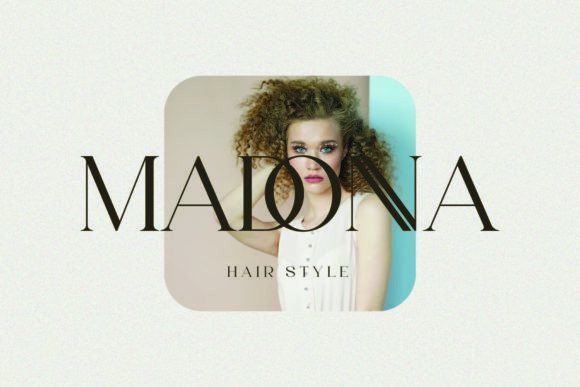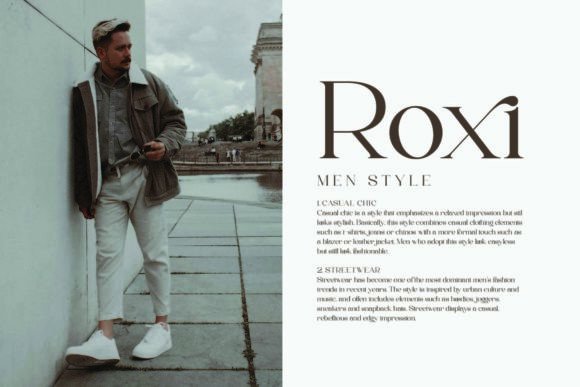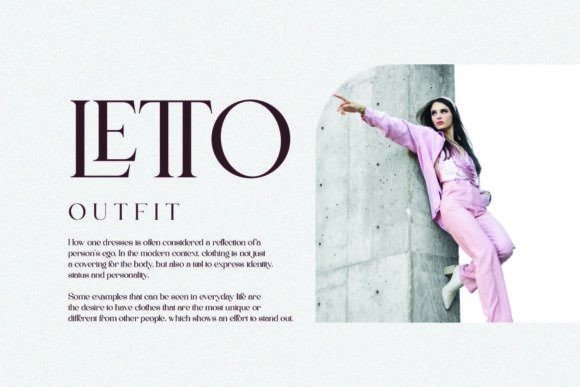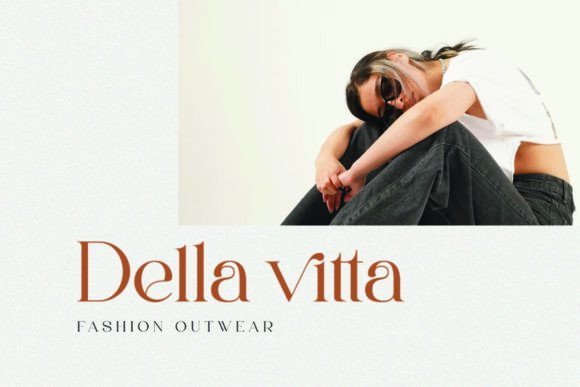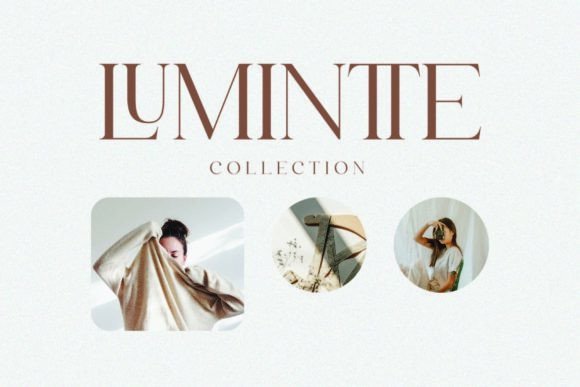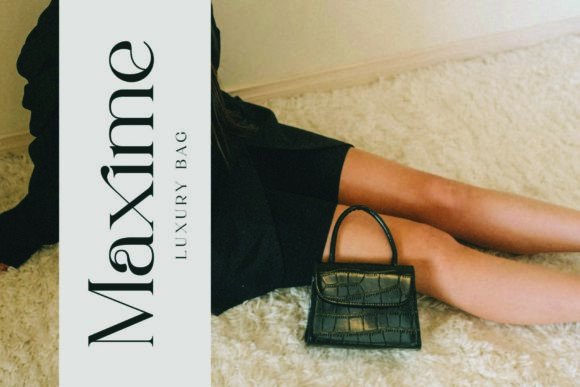
Introducing Govind Font: A Stylish Ligature Typeface for Modern Designers
In the world of typography, a font can make or break a design. For designers and crafters, finding the perfect typeface that combines style, elegance, and versatility can be a daunting task. However, if you’re looking for a font that checks all these boxes and more, look no further than Govind Font. Inspired by the famous minimalist logo, Govind Font is a stylish ligature typeface that has taken the design world by storm.
The Inspiration Behind Govind Font
Govind Font draws its inspiration from the minimalist logo design movement, which emphasizes simplicity, clean lines, and a limited color palette. The font’s creator aimed to capture the essence of this design philosophy and translate it into a typographic masterpiece. The result is a font that exudes elegance, sophistication, and a touch of modernity.
Key Features of Govind Font
So, what makes Govind Font stand out from the rest? Here are some of its key features:
- Stylish Ligatures: Govind Font boasts beautiful ligatures that add a touch of elegance to any design. The ligatures are carefully crafted to create a seamless flow between letters, making it perfect for titles, headings, and logos.
- Modern and Minimalist: The font’s minimalist design ensures that it remains versatile and adaptable to various design contexts. Whether you’re designing a template, brochure, or logo, Govind Font fits right in.
- Highly Legible: Govind Font is designed to be highly legible, even at smaller font sizes. This makes it perfect for body text, captions, and other applications where readability is crucial.
- Multi-Language Support: Govind Font supports multiple languages, making it an excellent choice for designers working on international projects.
Use Cases for Govind Font
Govind Font’s versatility makes it suitable for a wide range of design applications. Here are some use cases to get you started:
- Branding and Logos: Create stunning logos, business cards, and letterheads with Govind Font’s elegant ligatures.
- Templates and Brochures: Design professional-looking templates, brochures, and flyers that showcase your brand’s personality.
- Video and Motion Graphics: Use Govind Font to add a touch of sophistication to your video titles, subtitles, and motion graphics.
- Advertising and Marketing: Create eye-catching ad campaigns, social media graphics, and marketing materials that grab attention.
Tips for Using Govind Font Effectively
To get the most out of Govind Font, here are some tips to keep in mind:
- Pair it with Other Fonts: Combine Govind Font with other fonts to create a unique typographic hierarchy.
- Experiment with Ligatures: Take advantage of Govind Font’s ligatures to add visual interest to your designs.
- Adjust Font Sizes: Play with font sizes to create visual contrast and emphasize important information.
Govind Font is a stylish ligature typeface that has captured the hearts of designers and crafters worldwide. Its minimalist design, elegant ligatures, and versatility make it an excellent choice for a wide range of design applications. Whether you’re working on branding, advertising, or marketing materials, Govind Font is sure to elevate your designs to the next level. So why wait? Give Govind Font a try today and experience the power of beautiful typography!